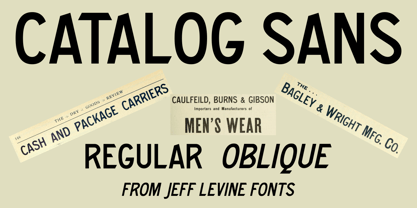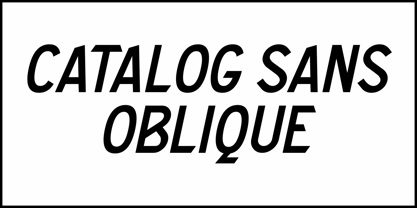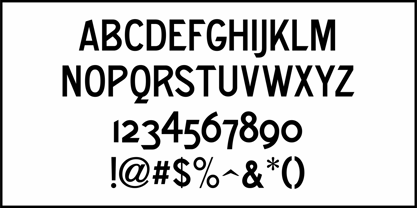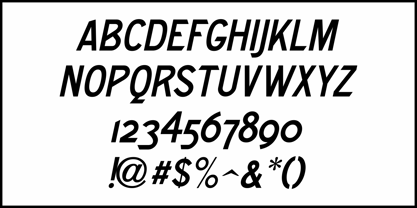
Catalog Sans JNL
by Jeff Levine
The Catalog Sans JNL Font Family was designed by Jeff Levine and published by Jeff Levine. Catalog Sans JNL contains 2 styles and family package options. More about this family
Based on Ronaldson Gothic (named after James Ronaldson); who owned the first type foundry located in the United States), Catalog Sans JNL is a classic Victorian-era Grotesk sans serfif and is available in both regular and oblique versions.